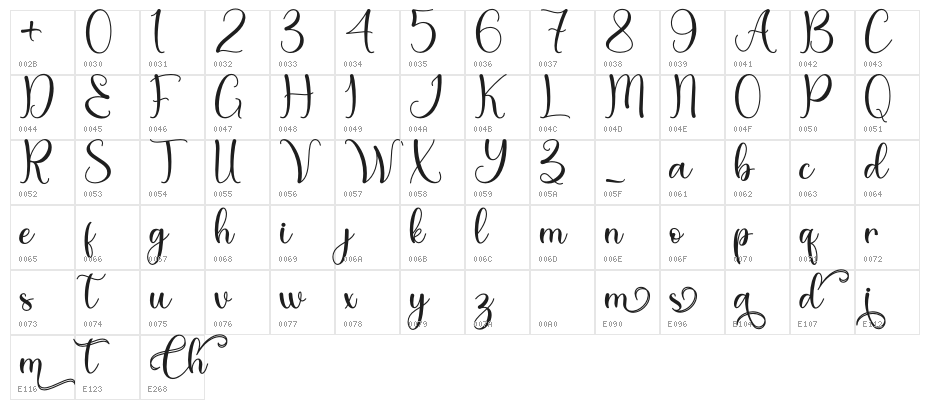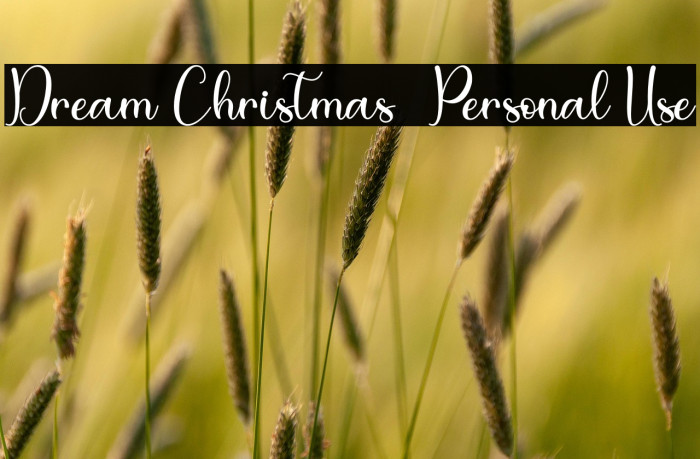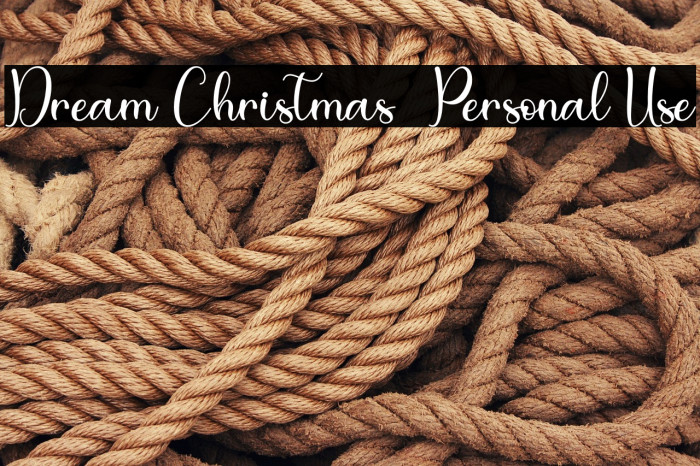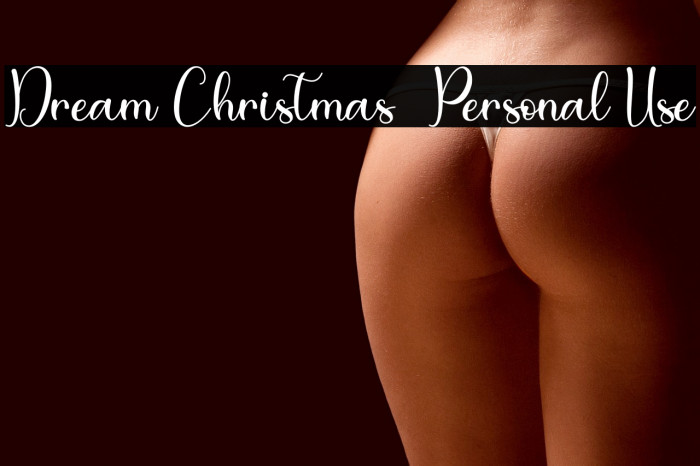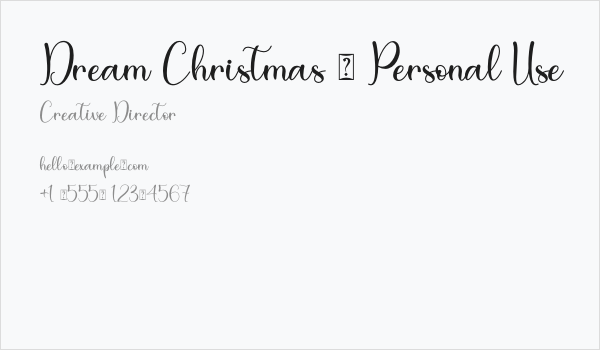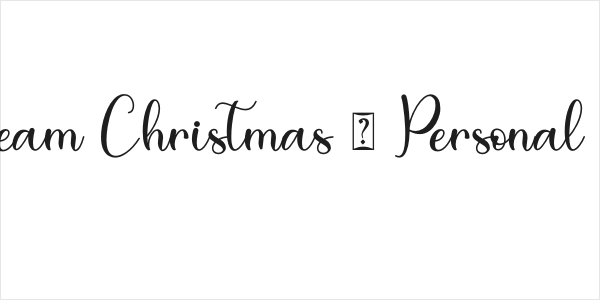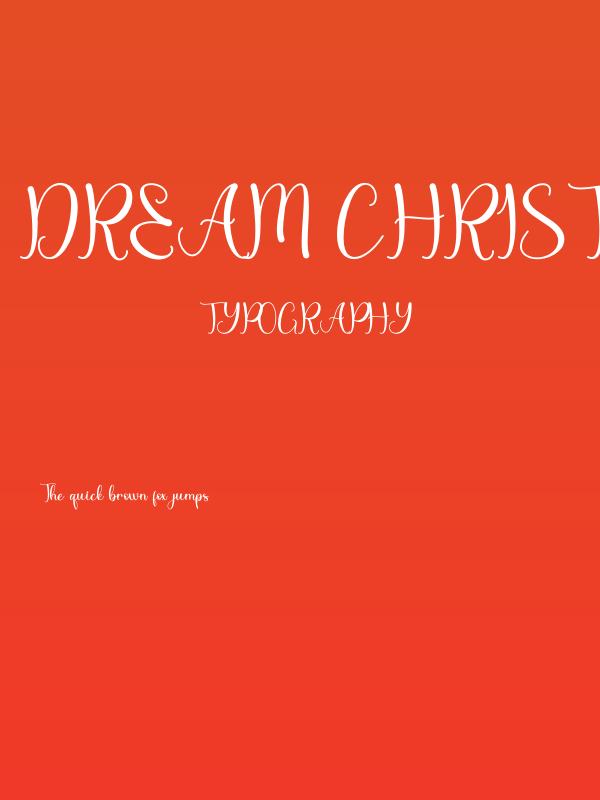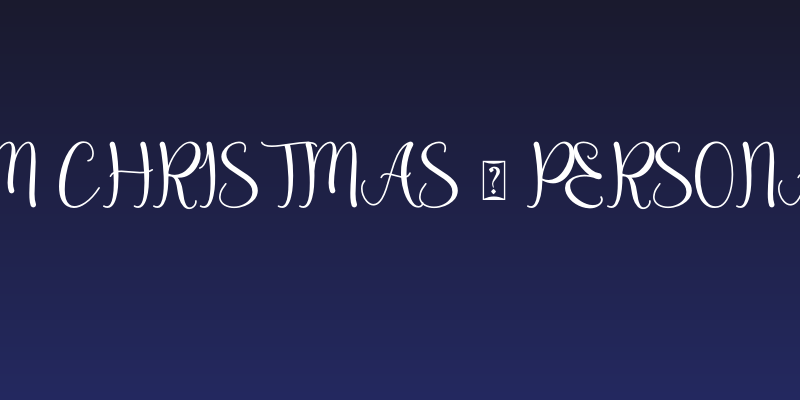
Dream Christmas - Personal Use Font
Dream Christmas - Personal Use Description
This font features a whimsical and flowing script style, characterized by its elegant curves and loops. The uppercase letters are tall and slender, with a graceful flair that adds a touch of sophistication. The lowercase letters maintain a consistent flow, with some characters extending below the baseline, enhancing the font's playful nature. The numerals are designed to match the overall style, with smooth curves and a balanced appearance. This font is ideal for creating a festive and joyful atmosphere, perfect for holiday-themed projects or any design that requires a touch of elegance and charm.
| Proposed Projects | Ideal for holiday cards, invitations, festive branding, and decorative designs. |